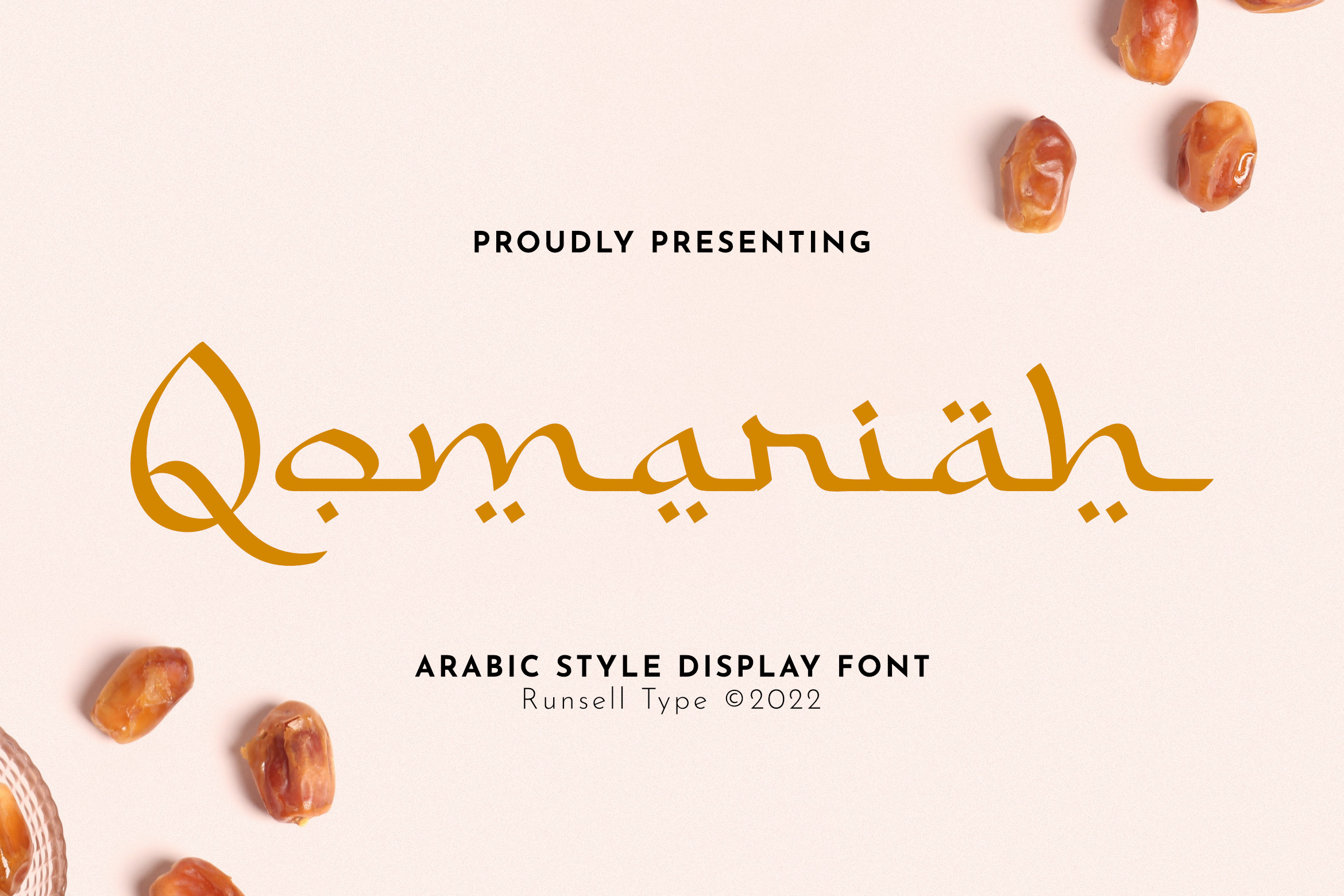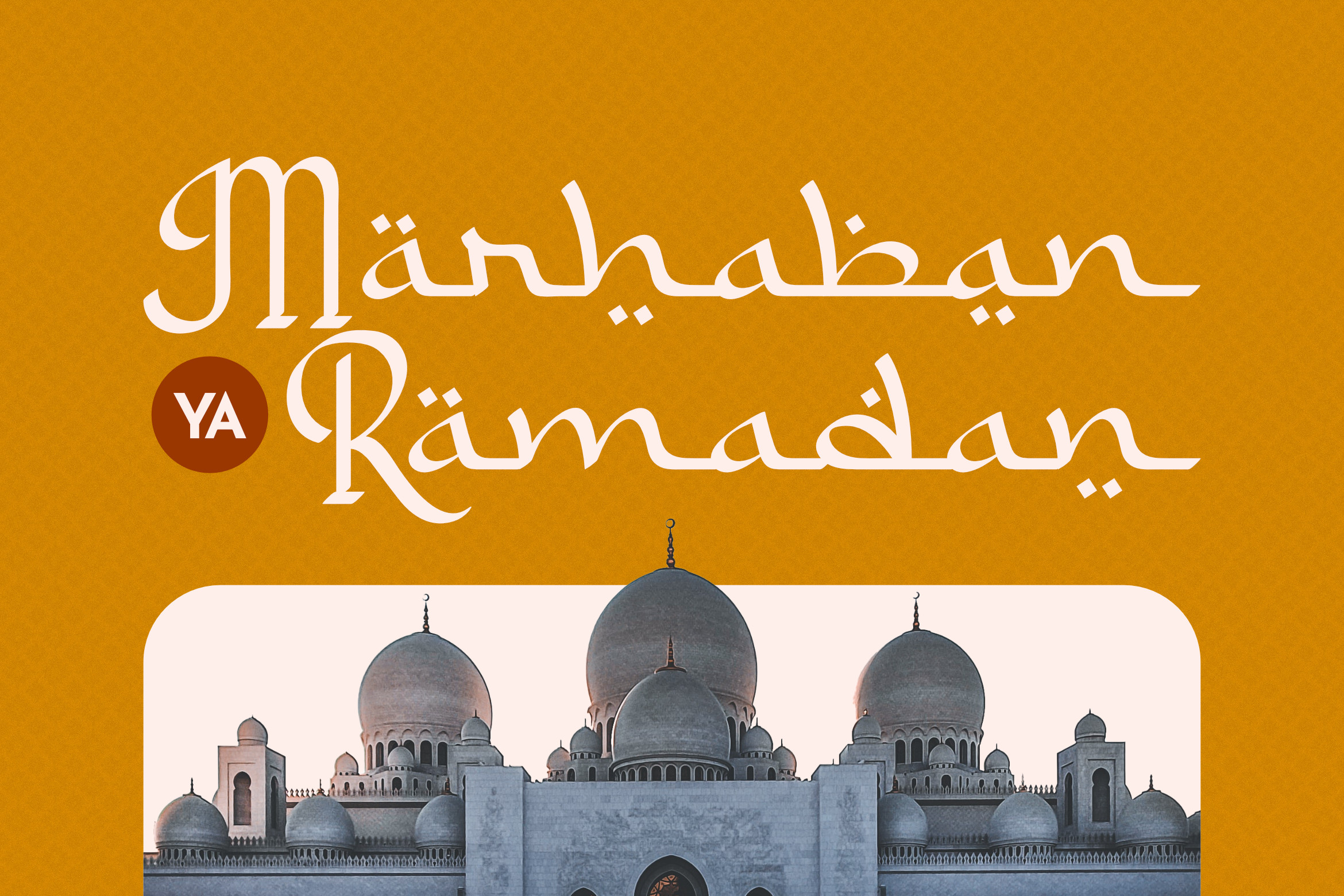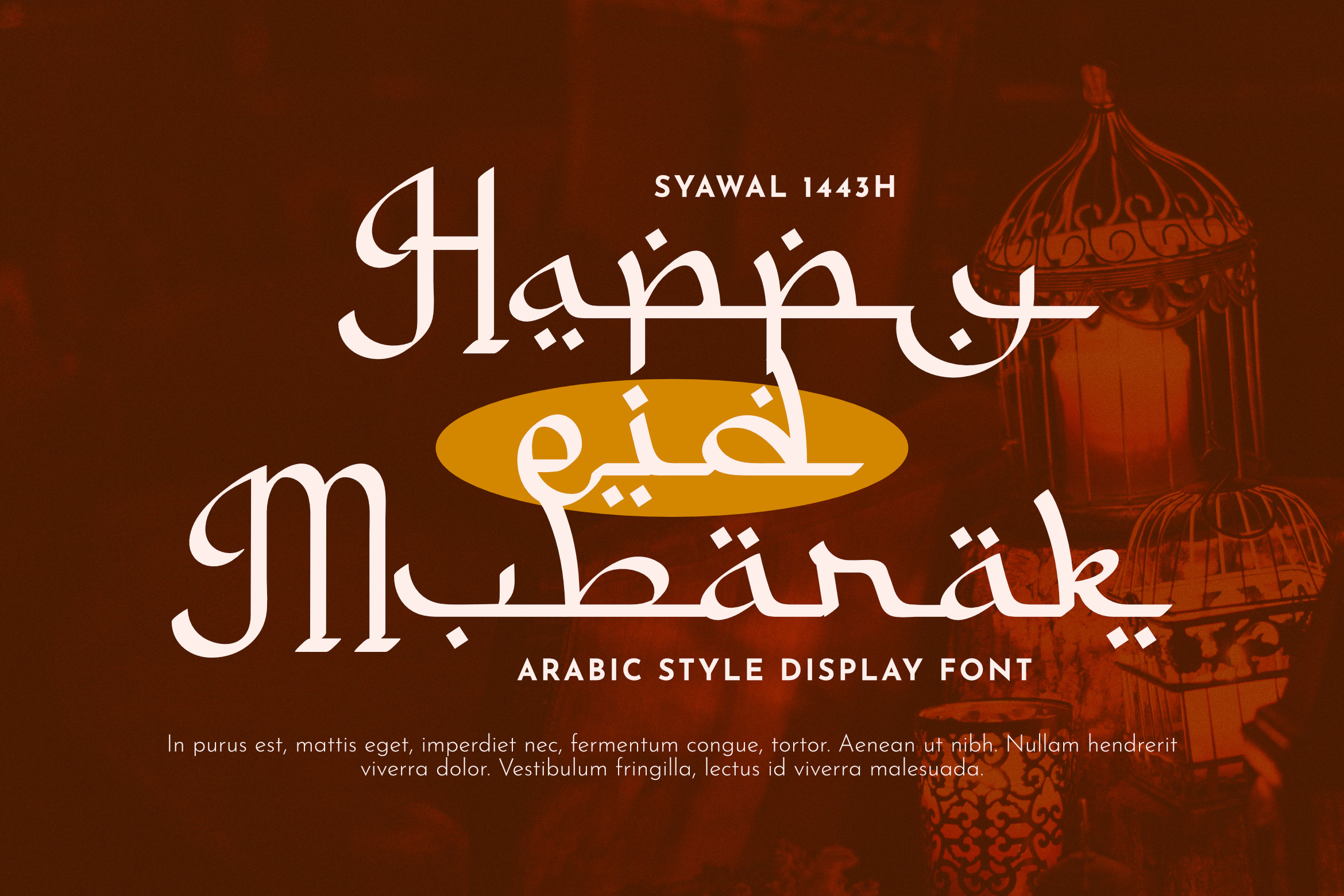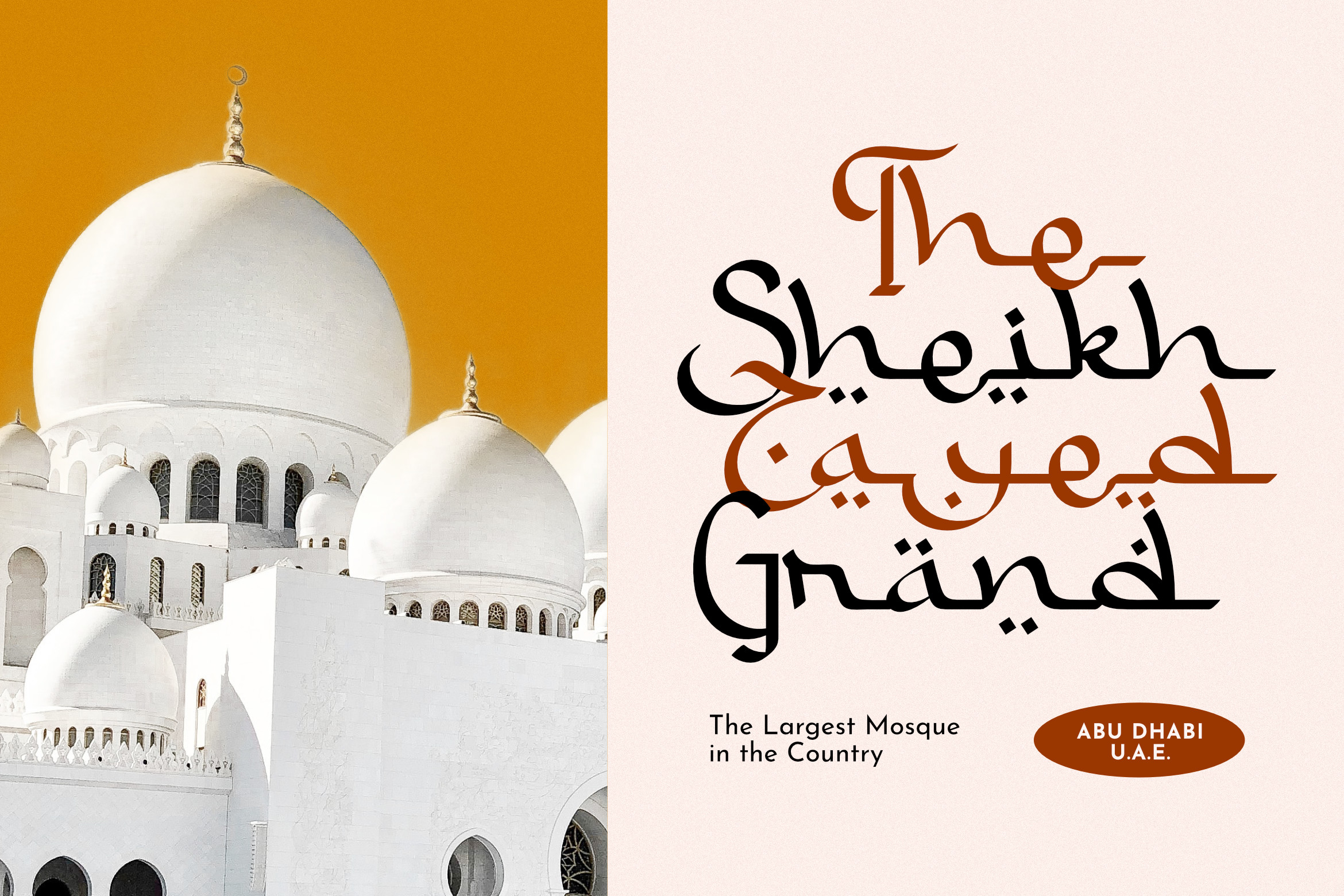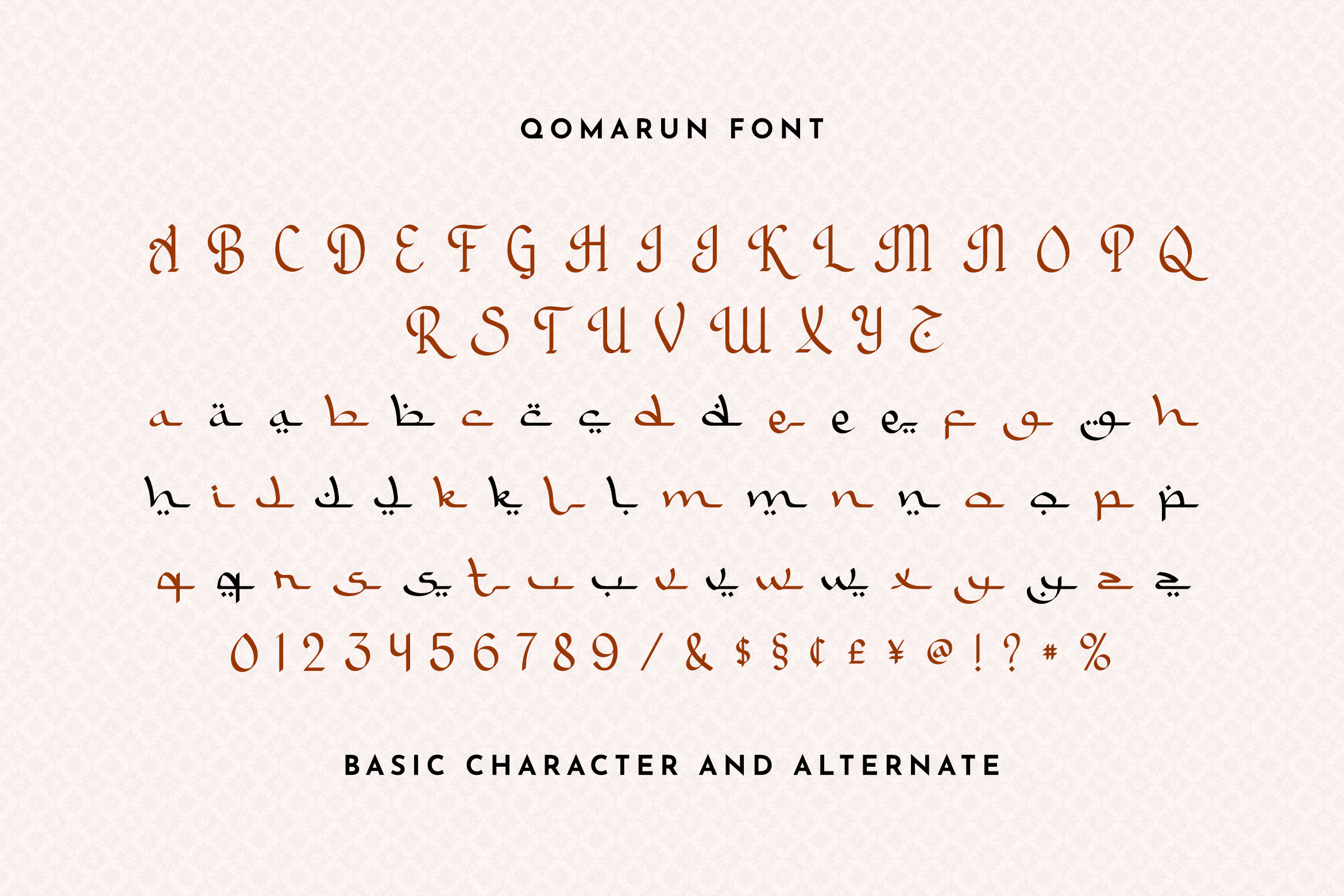
Qomariah is an elegant Arabic-style display font that blends traditional Middle Eastern calligraphy with modern design sensibilities. Its sleek curves, ornamental accents, and decorative baseline dots reflect Islamic visual aesthetics, making it perfect for spiritual quotes, Eid greetings, Ramadan branding, and ceremonial invitations. The typeface balances legibility with artistic flair, making each word look handwritten yet refined.
Designed with stylistic alternates and multilingual support, Qomariah gives designers the flexibility to create standout compositions with a unique cultural touch. Whether for posters, social media graphics, product labels, or mosque signage, Qomariah adds a graceful and reverent tone to your message while maintaining contemporary usability.
Qomariah